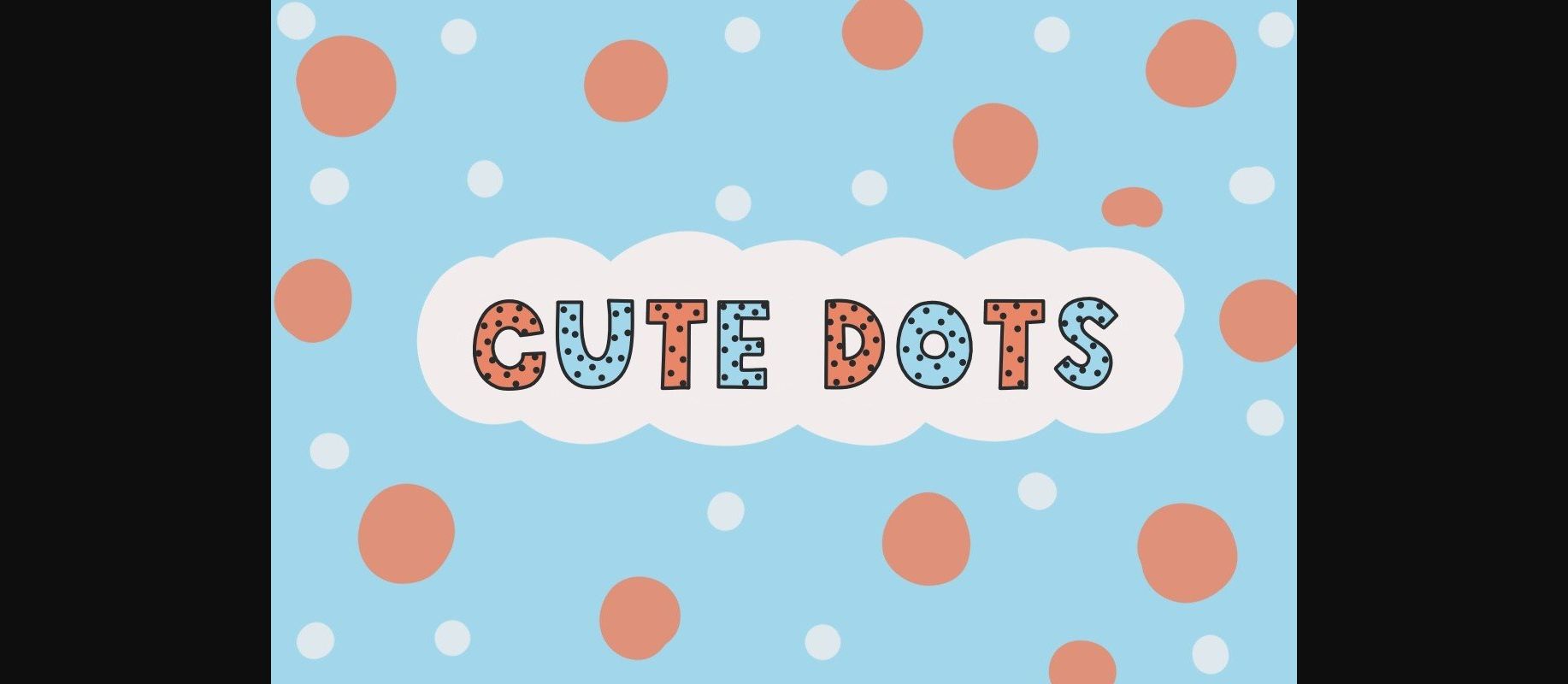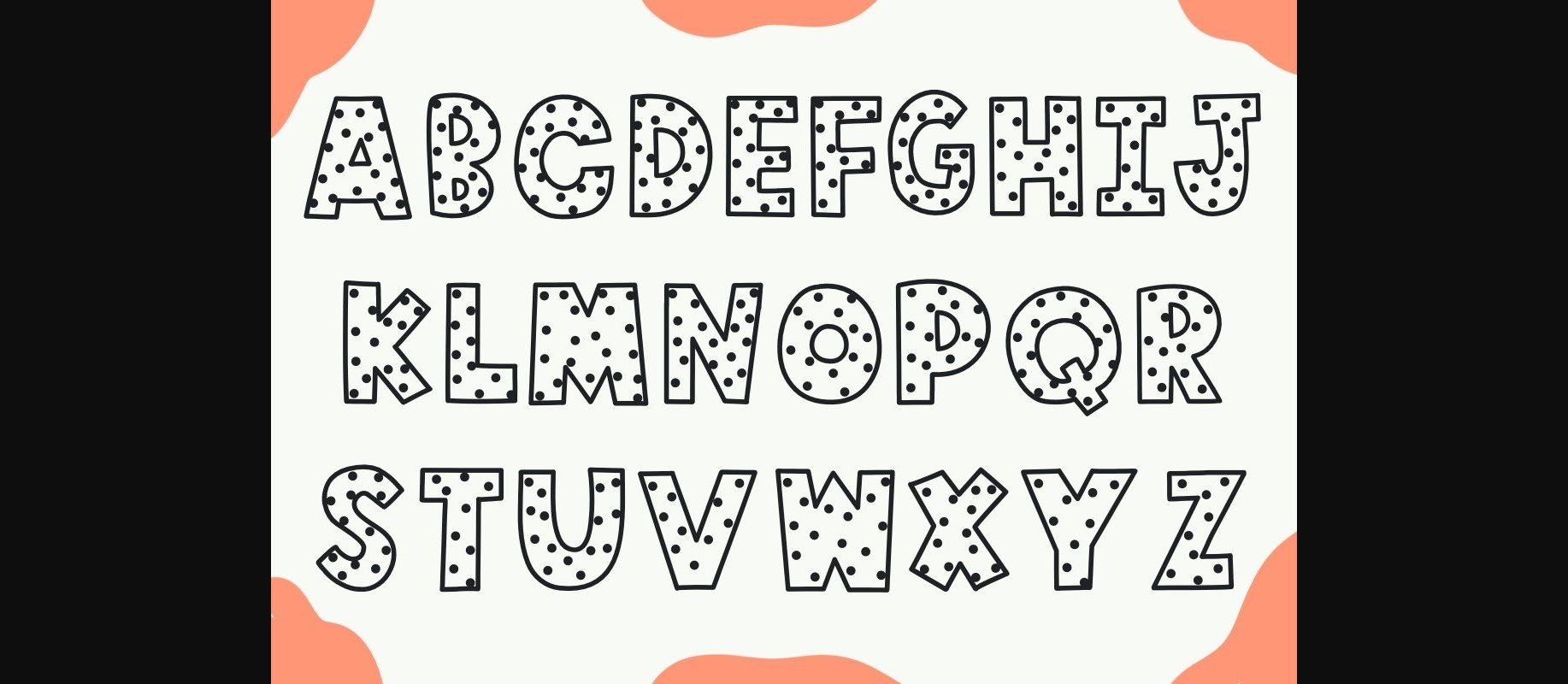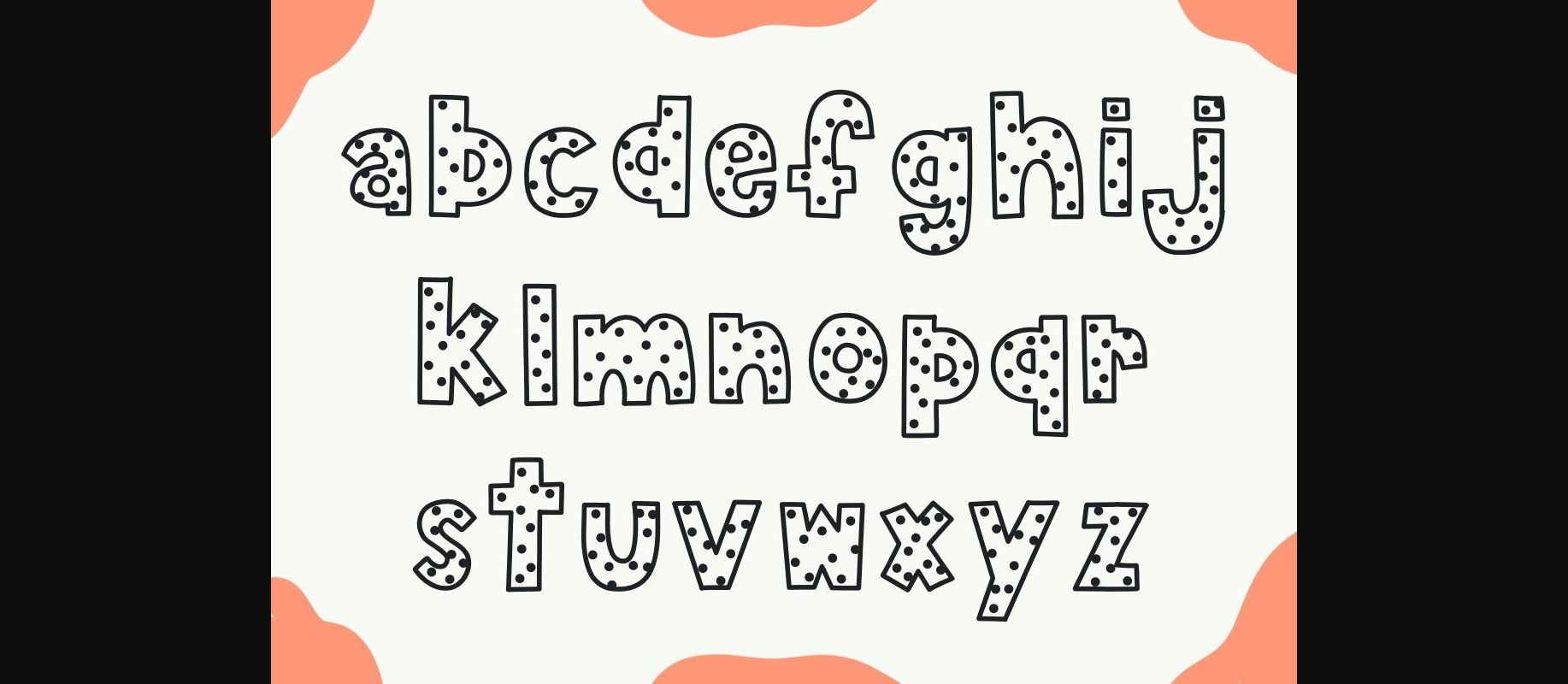
Cute Dots Font
About Cute Dots Font
Cute Dots is a fun and playful decorative font. Its friendly feel makes this font incredibly flexible, fitting a wide range of contexts. Have fun with this trendy font and explore its endless variations.